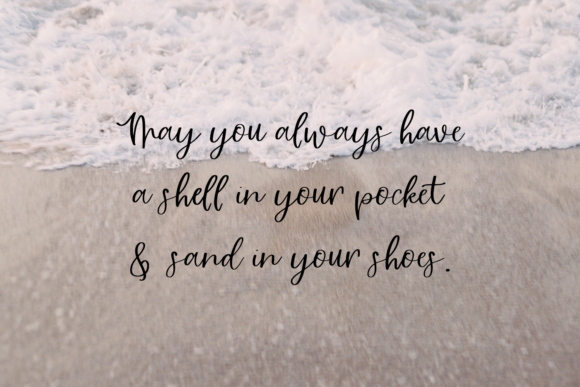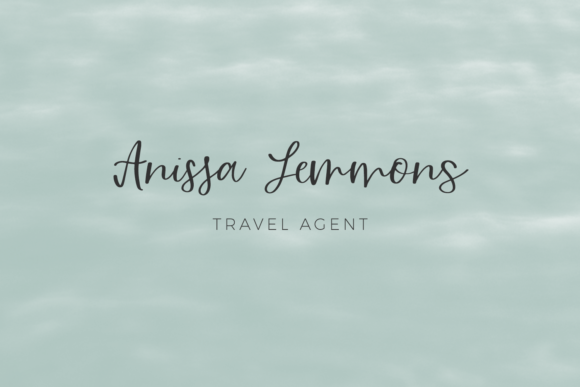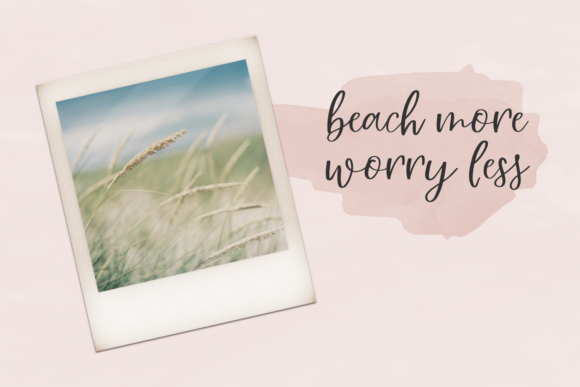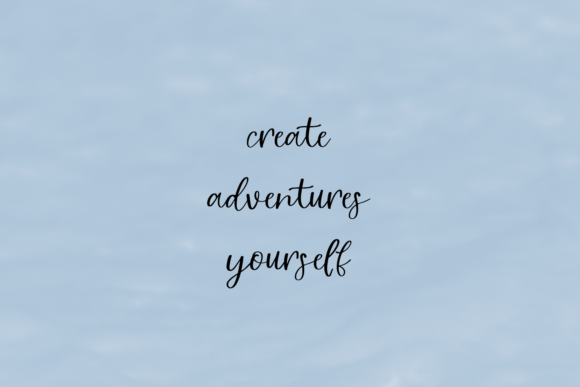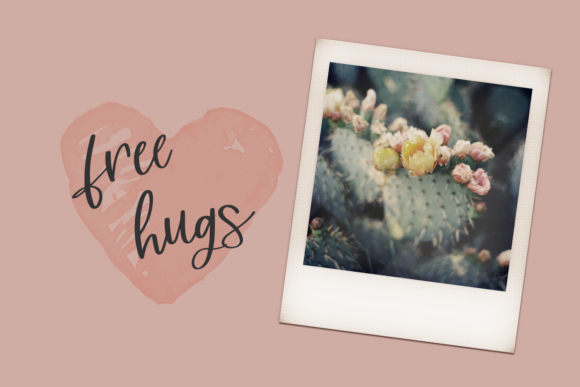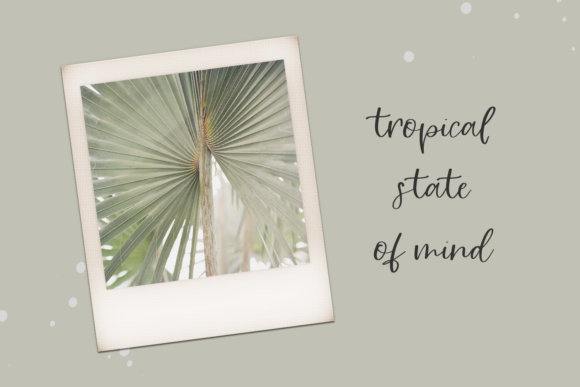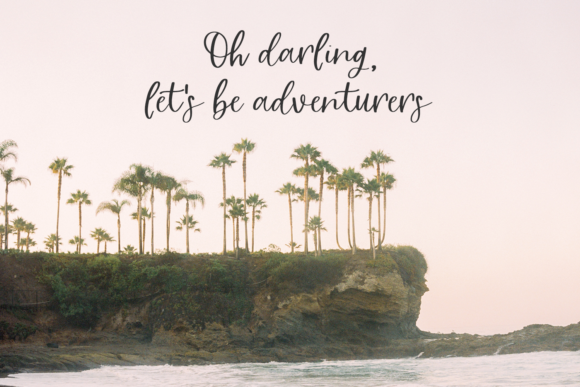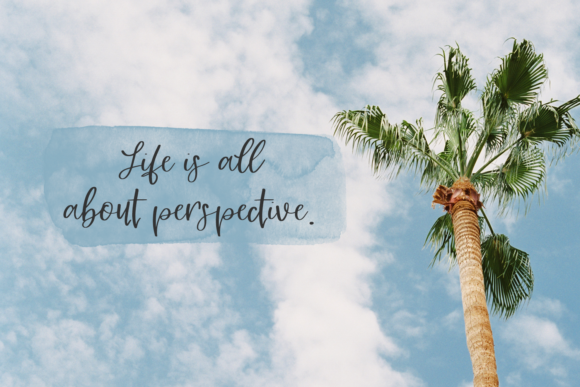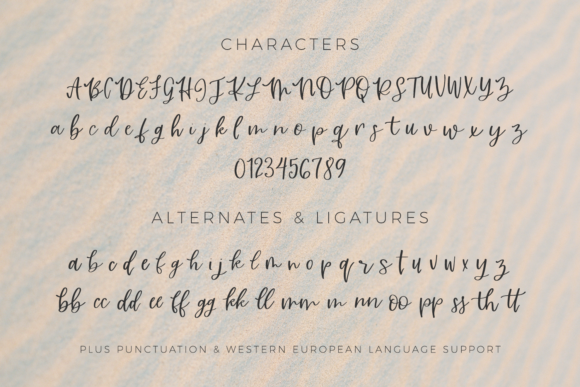
Riviera Mexicana Font
Riviera Mexicana: Embrace the Charming and Elegant Handwritten Font
Introducing Riviera Mexicana, a font that perfectly balances charm and elegance with its delightful handwritten style. This font is a stunning choice for various design projects, from exquisite wedding invitations to heartfelt thank you cards, inspiring quotes, captivating logos, sophisticated business cards, and more. With its PUA encoding, accessing all the beautiful glyphs and swashes is a breeze, making your creative journey even more enjoyable. Riviera Mexicana features a varying baseline, smooth lines, gorgeous glyphs, and stunning alternates that add a touch of uniqueness to your designs.
The allure of Riviera Mexicana lies in its captivating charm and elegance. Each letter exudes a sense of sophistication, adding a touch of class to your designs.
Designing with Riviera Mexicana is an absolute delight. Its smooth lines and varying baseline bring a sense of artistry and refinement to your creations, making them stand out effortlessly.
Fall in love with the versatility of Riviera Mexicana. Whether you’re designing for joyous occasions like weddings or expressing heartfelt sentiments, this font adapts seamlessly to suit your creative vision.
Unlock the full potential of your creativity with Riviera Mexicana’s stunning alternates and glyphs. They allow you to add a personal touch to your designs, making each piece truly unique.
Gorgeous designs come to life with Riviera Mexicana’s charming and elegant style. Whether you’re creating wedding invitations that enchant, thank you cards that warm hearts, or business cards that leave a lasting impression, this font adds a touch of beauty that captivates the eye.
In conclusion, Riviera Mexicana is more than just a font; it’s an enchanting masterpiece designed to elevate your projects to new heights. Embrace its delightful charm, and let it become the centerpiece of your most cherished designs. Whether you’re celebrating love, expressing gratitude, or crafting captivating logos, Riviera Mexicana will be your trusted companion, adding a touch of sophistication and elegance. Allow this font to breathe life into your creativity, and watch as your designs come alive with the charming and elegant spirit of Riviera Mexicana. Fall in love with its timeless allure, and let it be the guiding light that leads you to create truly spectacular designs that leave a lasting impact on all who behold them.